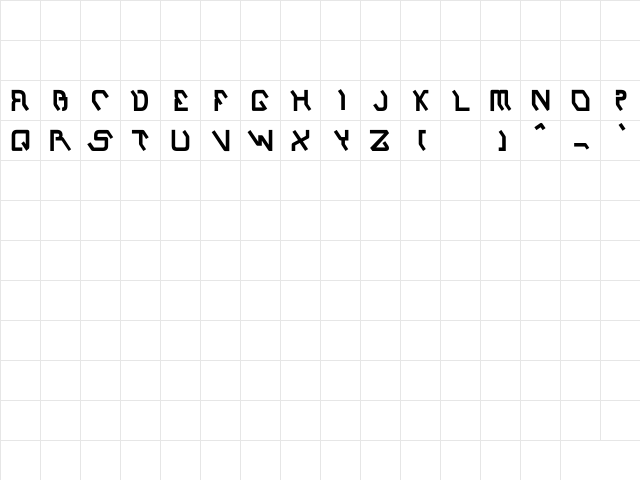
Slantica Regular
Design Context for Slantica Typeface
Slantica is a composed and adaptable typeface that performs quietly and consistently across a wide range of design contexts.